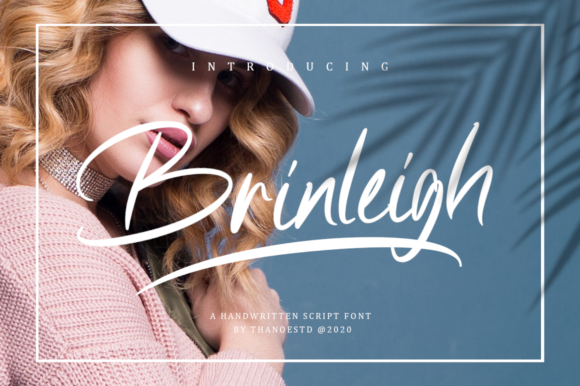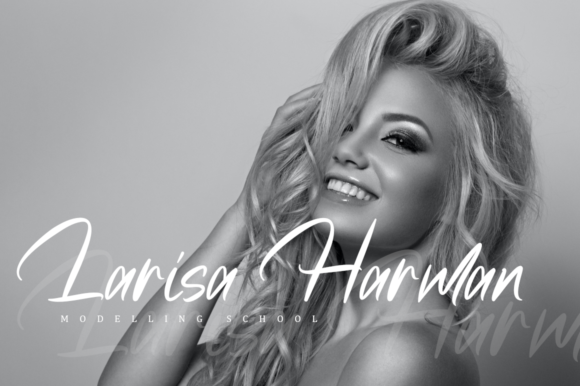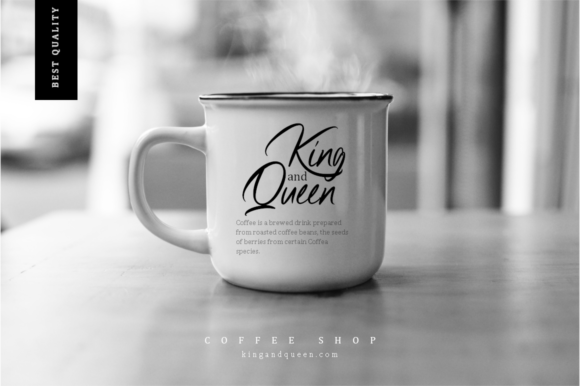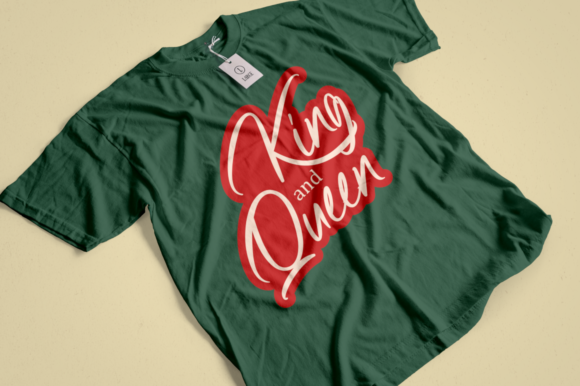
About Brinleigh Font
Brinleigh is a casual and beautiful handwritten font. It has a casual, yet elegant touch. It can be used for various purposes such as logos, wedding invitations, headings, t-shirts, letterhead, signage, labels, news, posters, badges and so much more.